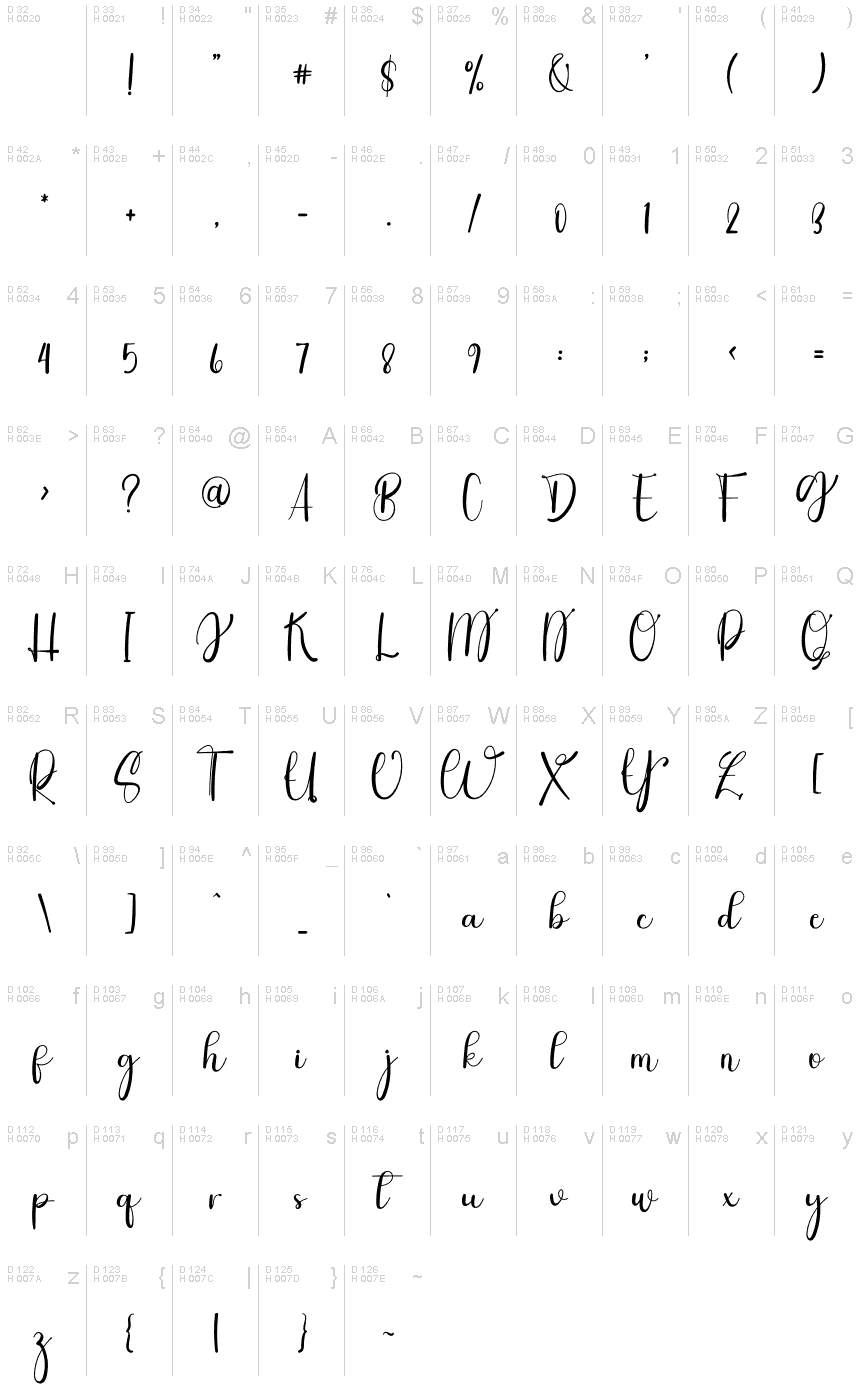
Maladewa
Maladewa, a light calligraphy font by FreshtypeINK, is perfect for creating elegant logos, invitations, and handwritten quotes. Its graceful curves and delicate lines will make your projects look beautiful and sophisticated.